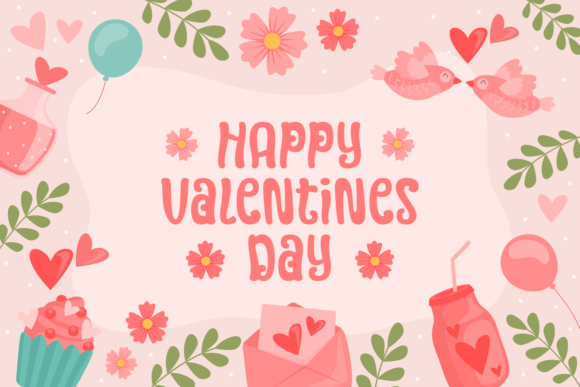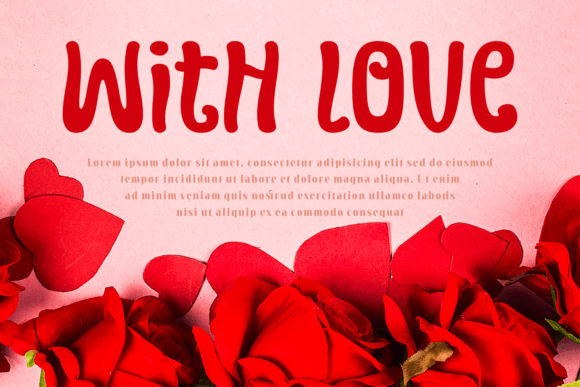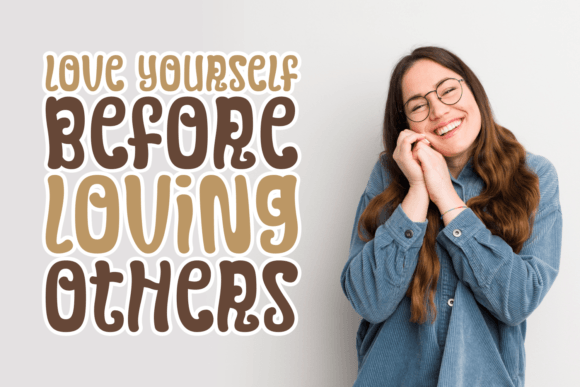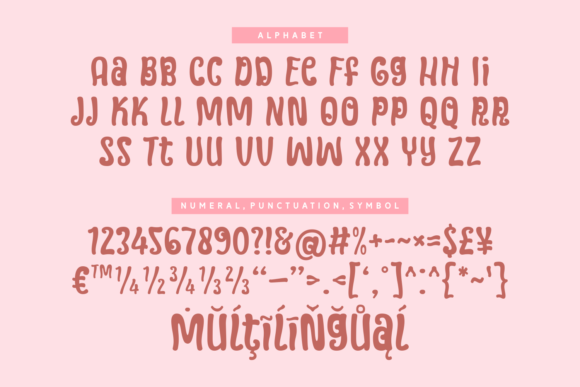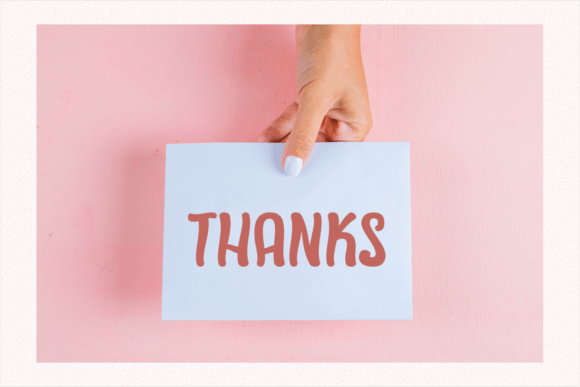
Quirky Lovable Font – Free Download
Introduction to Quirky Lovable Font
Quirky Lovable has a strong personality which makes it a perfect choice for display projects.
Perfectly suited for a wide range of applications from branding and logos, to candy and food packages Quirky Lovable is a bright and fun typeface with a unique appearance.
Key Features of Quirky Lovable Font
Why Choose Quirky Lovable Font?